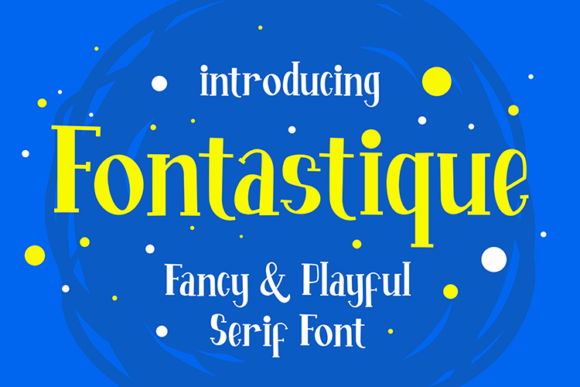
Introducing Fontastique Font - A Serif Font Family That Unleashes Your Creativity
Fontastique is not just a font; it's a gateway to a magical world where your imagination runs wild. This enchanting serif font, crafted by the visionary minds at Cikareotype, is a symphony of elegance and whimsy, ready to transform your creative endeavors into masterpieces. With its captivating curves, playful strokes, and a touch of mystique, Fontastique is the perfect choice for those who dare to dream big.
Embark on a Typographic Journey Like No Other
With Fontastique, the possibilities are boundless. Whether you're designing captivating quotes to inspire and uplift, creating eye-catching t-shirt designs that make a statement, or crafting flyers and logos that leave a lasting impression, Fontastique is your trusted companion. Let your imagination soar as you explore the endless creative avenues that await you with this extraordinary font.
Unleash the Magic in Your Designs
Fontastique's allure lies in its ability to infuse your designs with a touch of magic. Its whimsical nature adds a spark of enchantment, while its refined serifs exude an air of sophistication. Whether you're designing for a children's book, a whimsical poster, or a captivating social media post, Fontastique has the power to transform the ordinary into the extraordinary.
Dive into a World of Creative Possibilities
With Fontastique, the creative possibilities are endless. Let your imagination run wild as you craft stunning labels that add a touch of elegance to your products, or create logos that embody your brand's unique personality. The font's versatility extends to YouTube channels, where it can bring your videos to life with its captivating charm. Unleash the magic of Fontastique and watch your creative visions come to life.